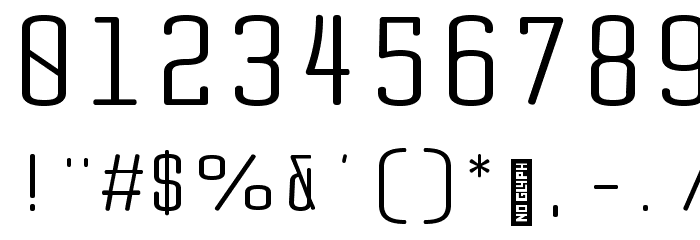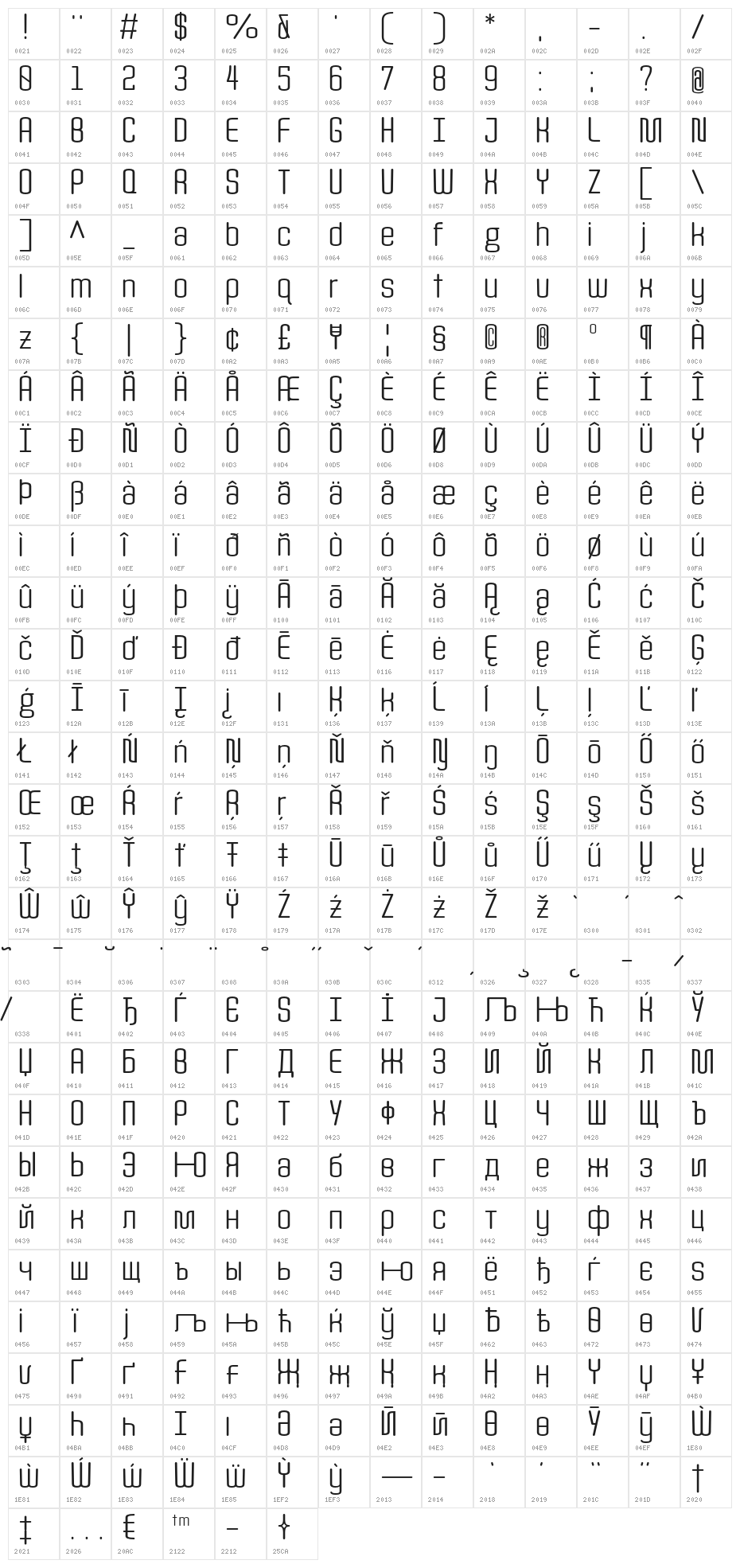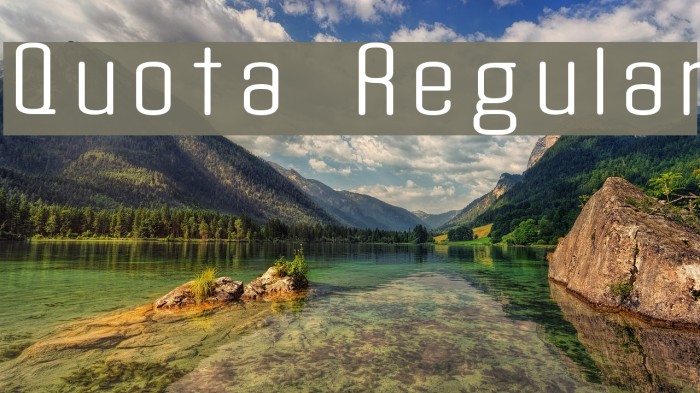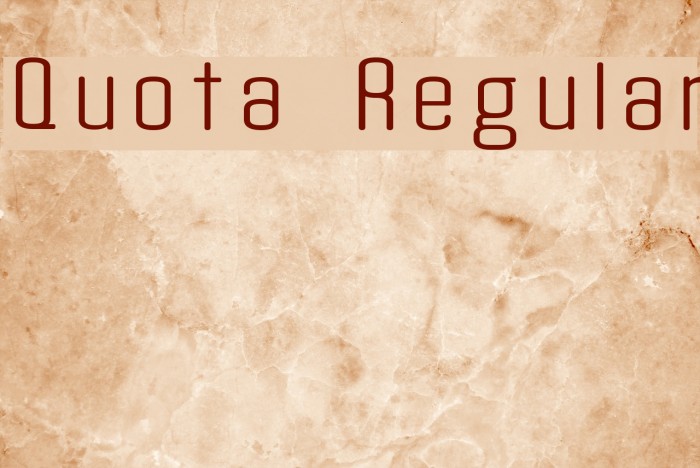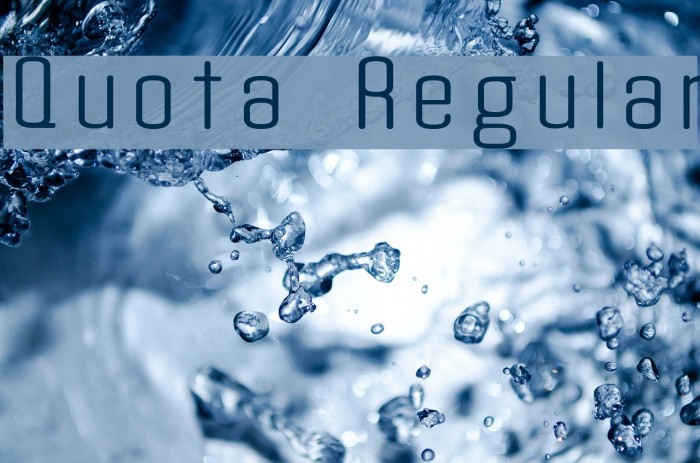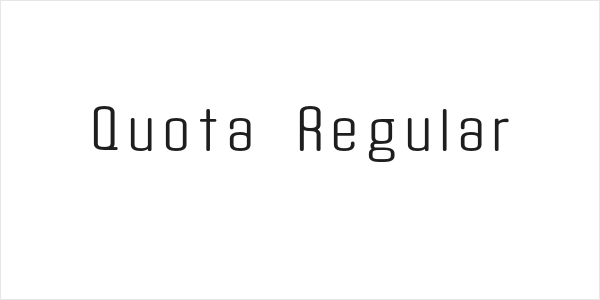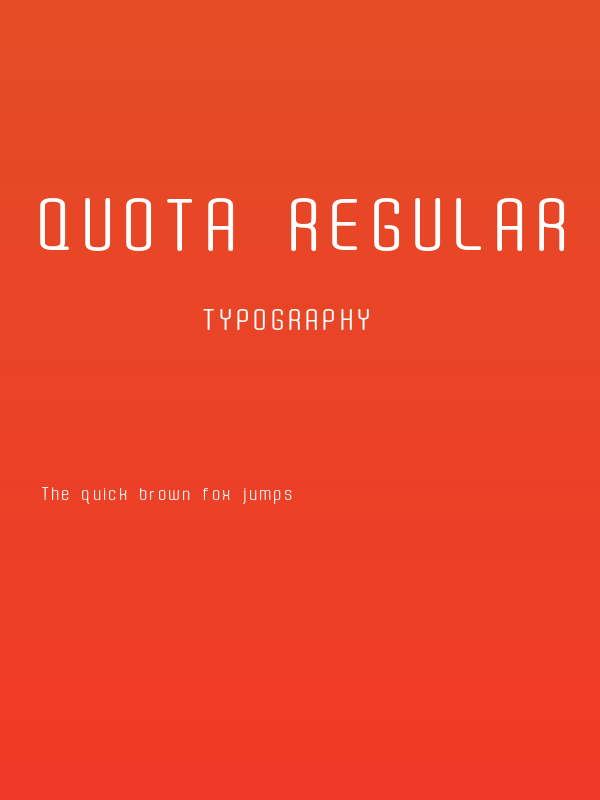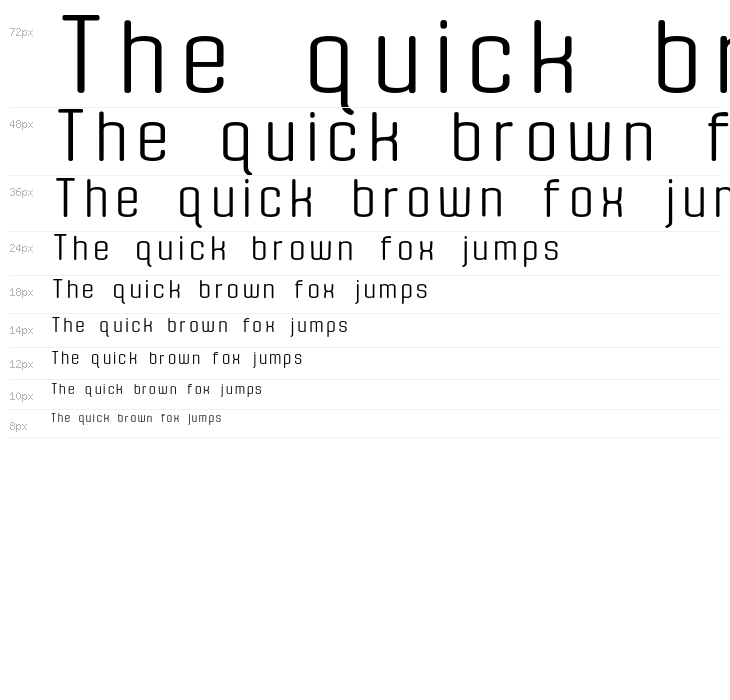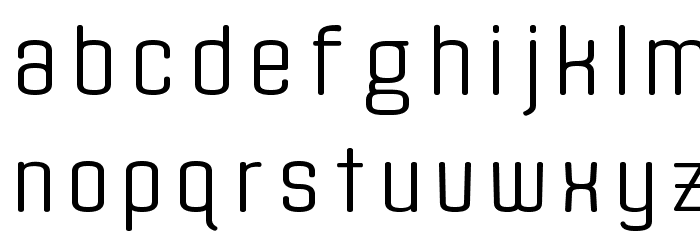
Quota Regular Font
Quota Regular Description
This font features a clean and modern design with a geometric structure. The characters are evenly spaced, providing a balanced and harmonious appearance. The uppercase letters are bold and assertive, while the lowercase letters maintain a consistent style that complements the overall look. The numerals are distinct and easy to read, making them suitable for various applications. Special characters are well-integrated, enhancing the font's versatility. The design is minimalistic yet impactful, making it ideal for contemporary projects.
| Proposed Projects | Ideal for branding, advertising, web design, and editorial projects where a modern and clean aesthetic is desired. |